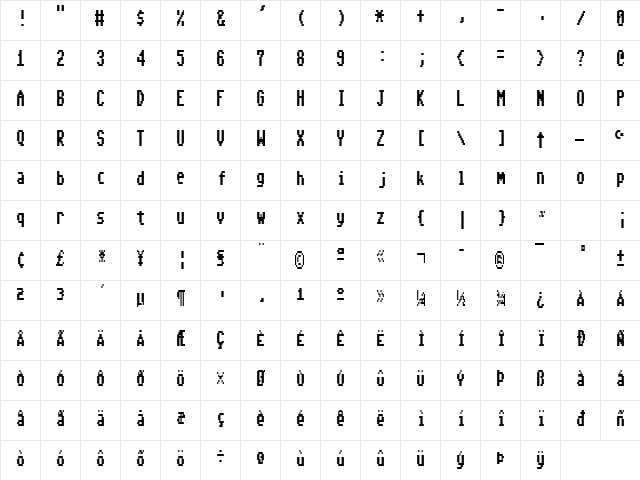
CBM-64 80 Column Normal
Design Context for CBM-64 80 Column Typeface
CBM-64 80 Column takes a measured approach to typography — its balanced proportions and neutral character make it a reliable workhorse for both digital and print work.